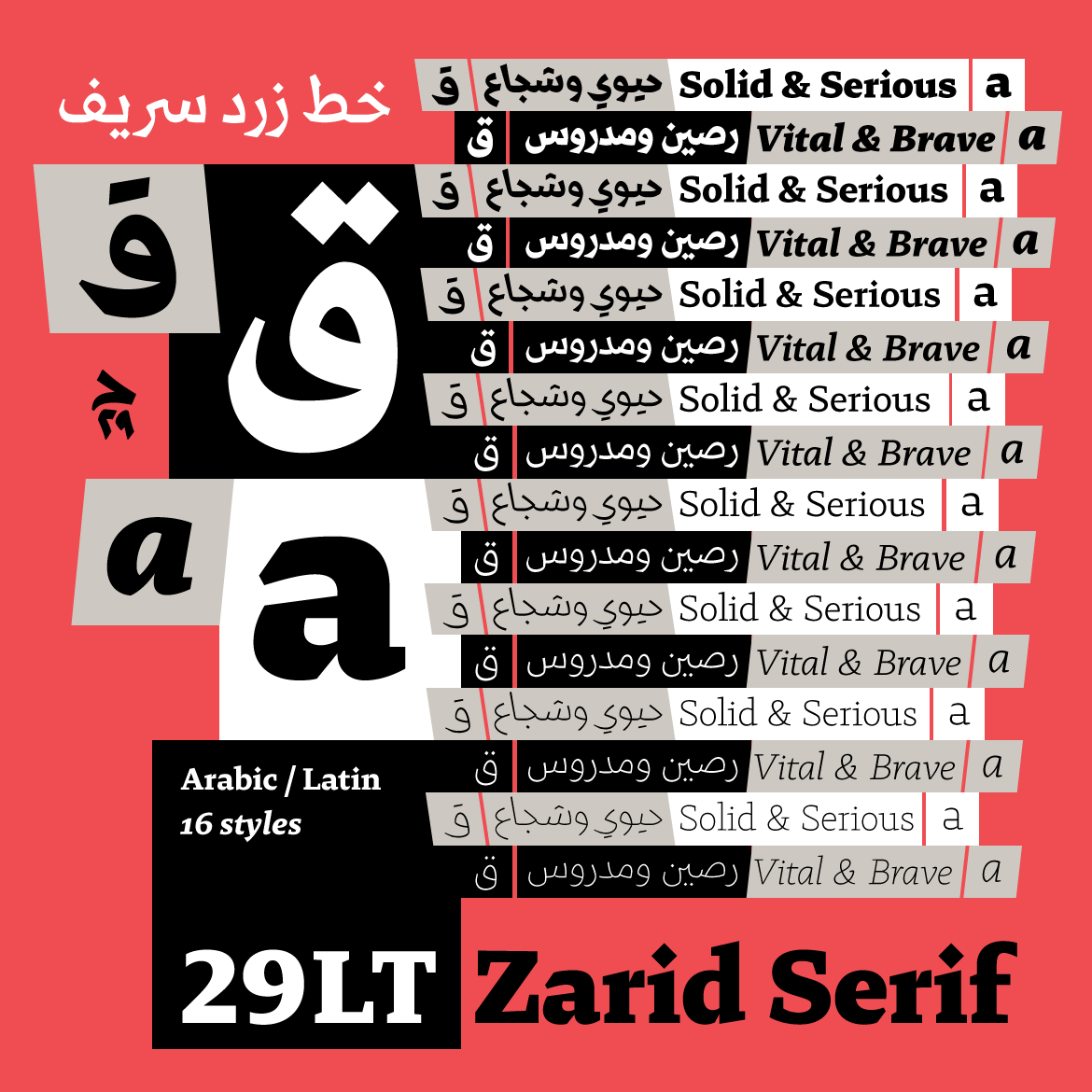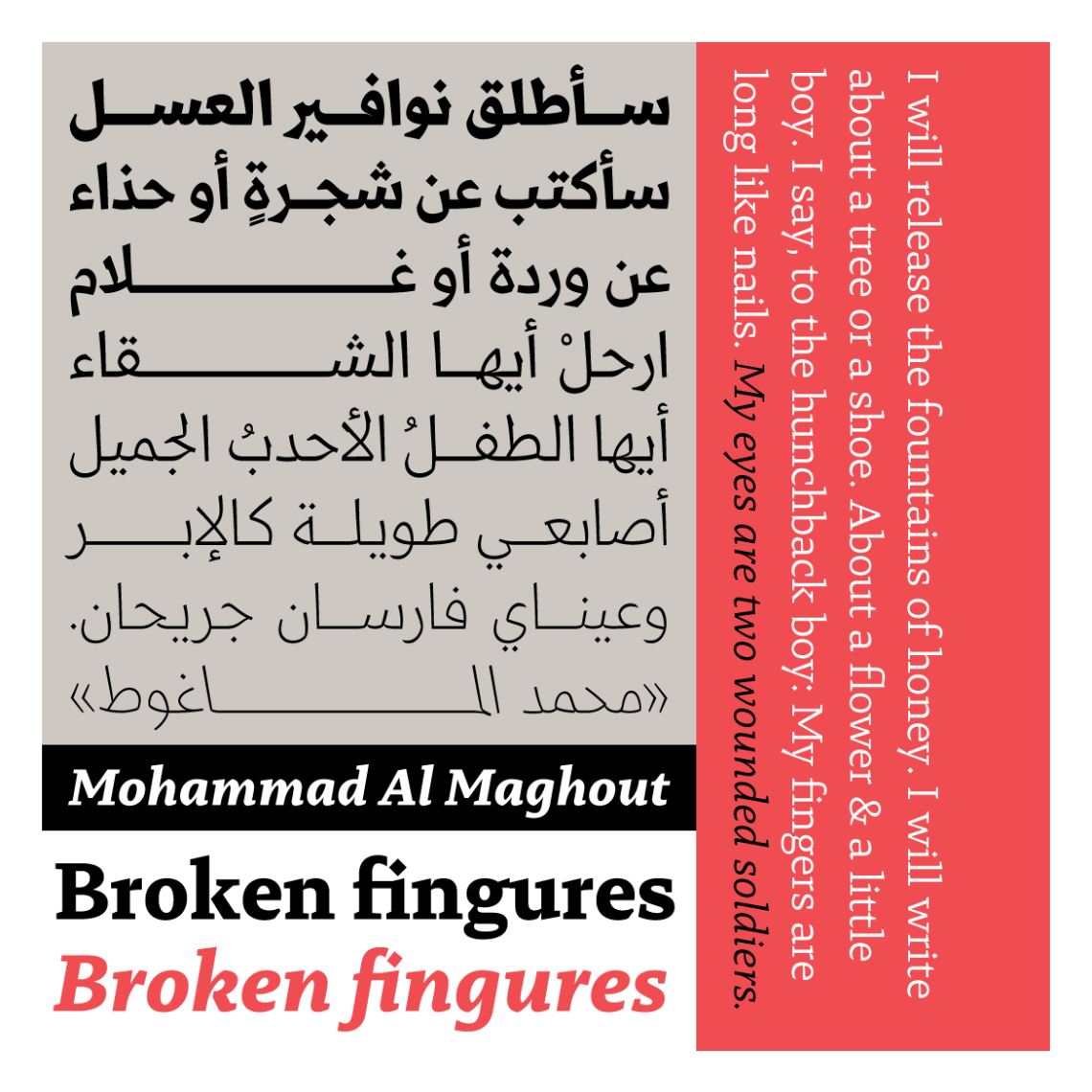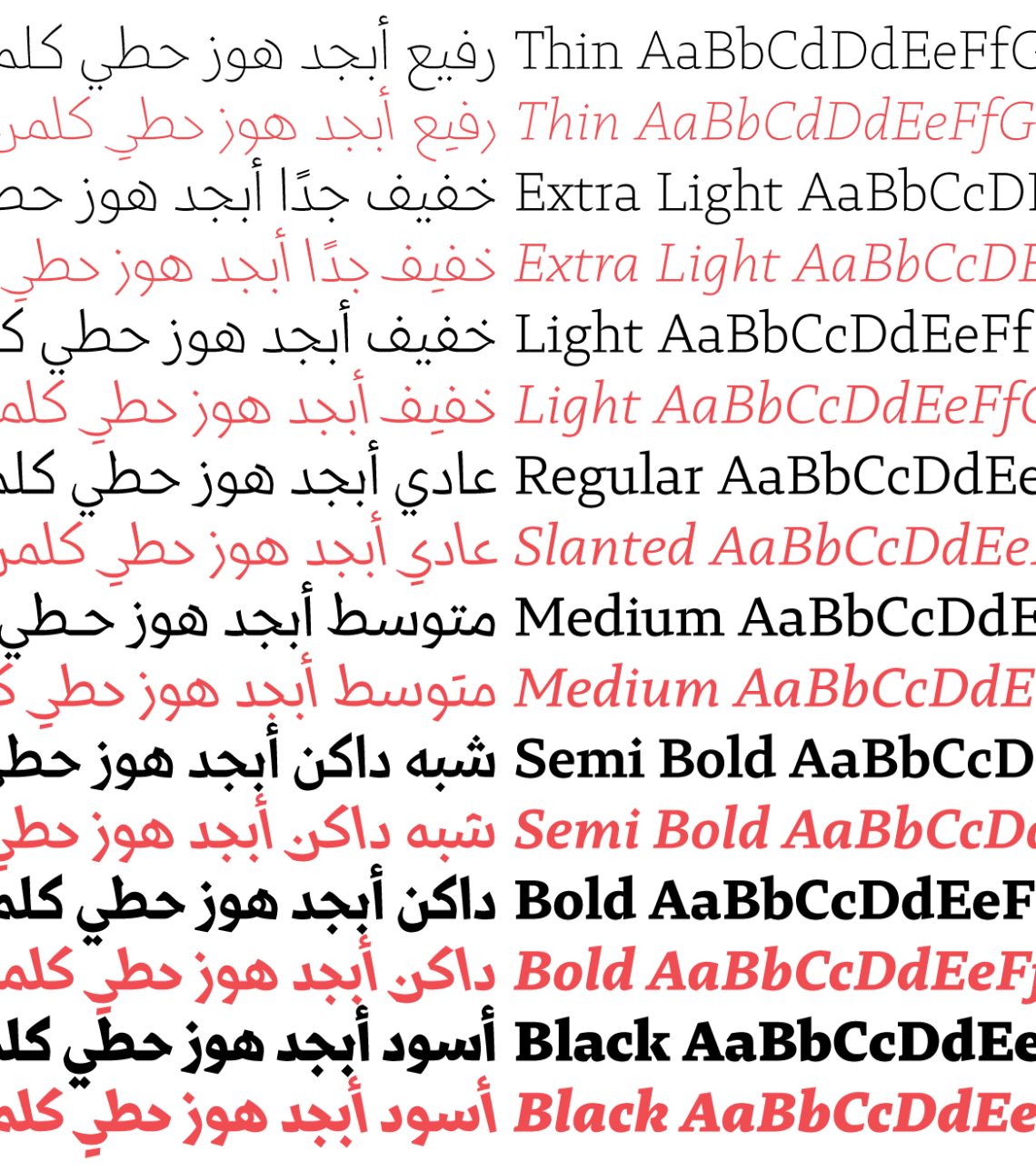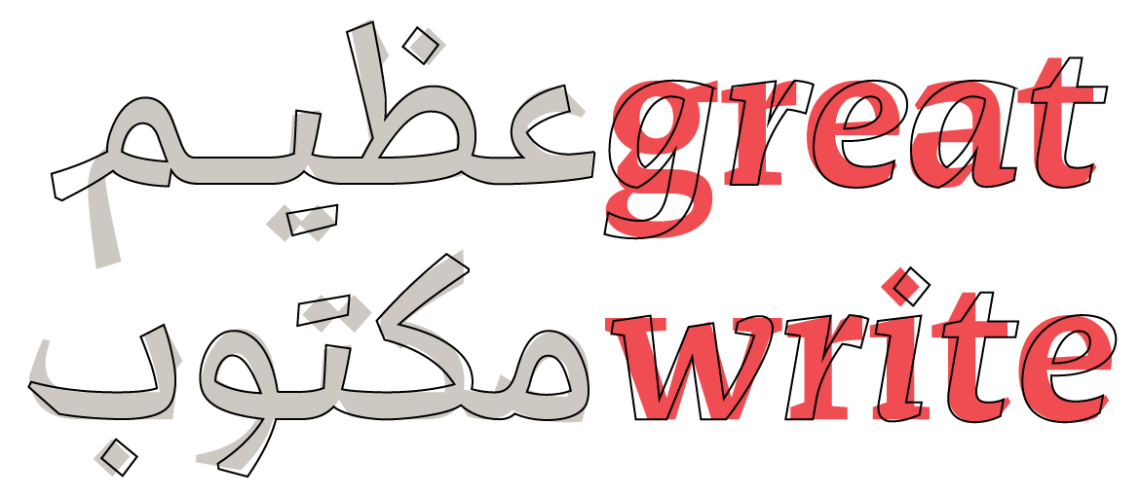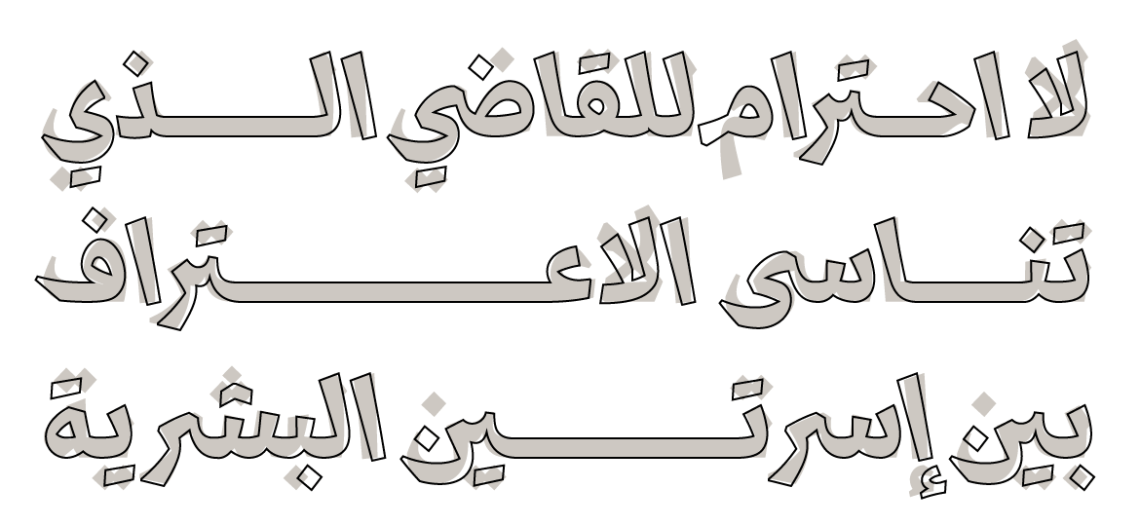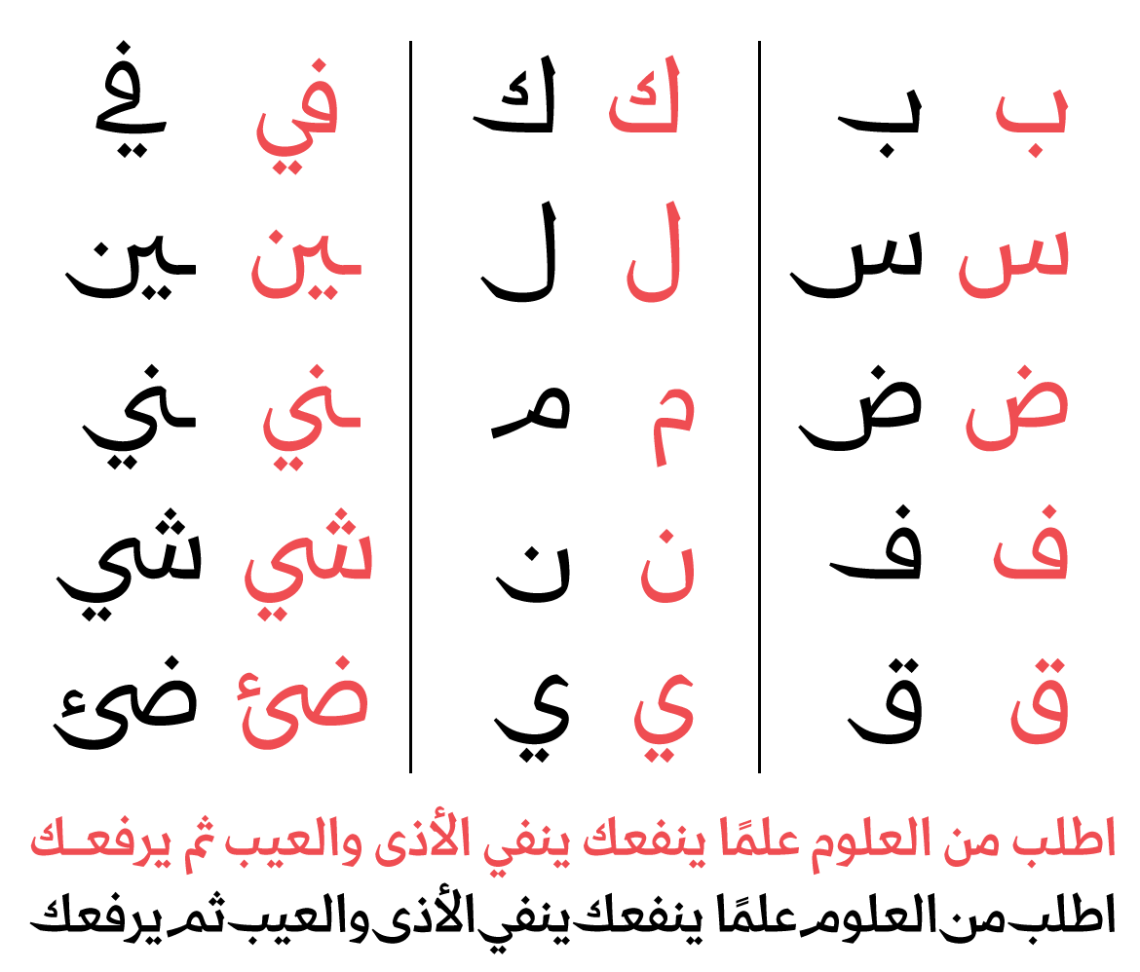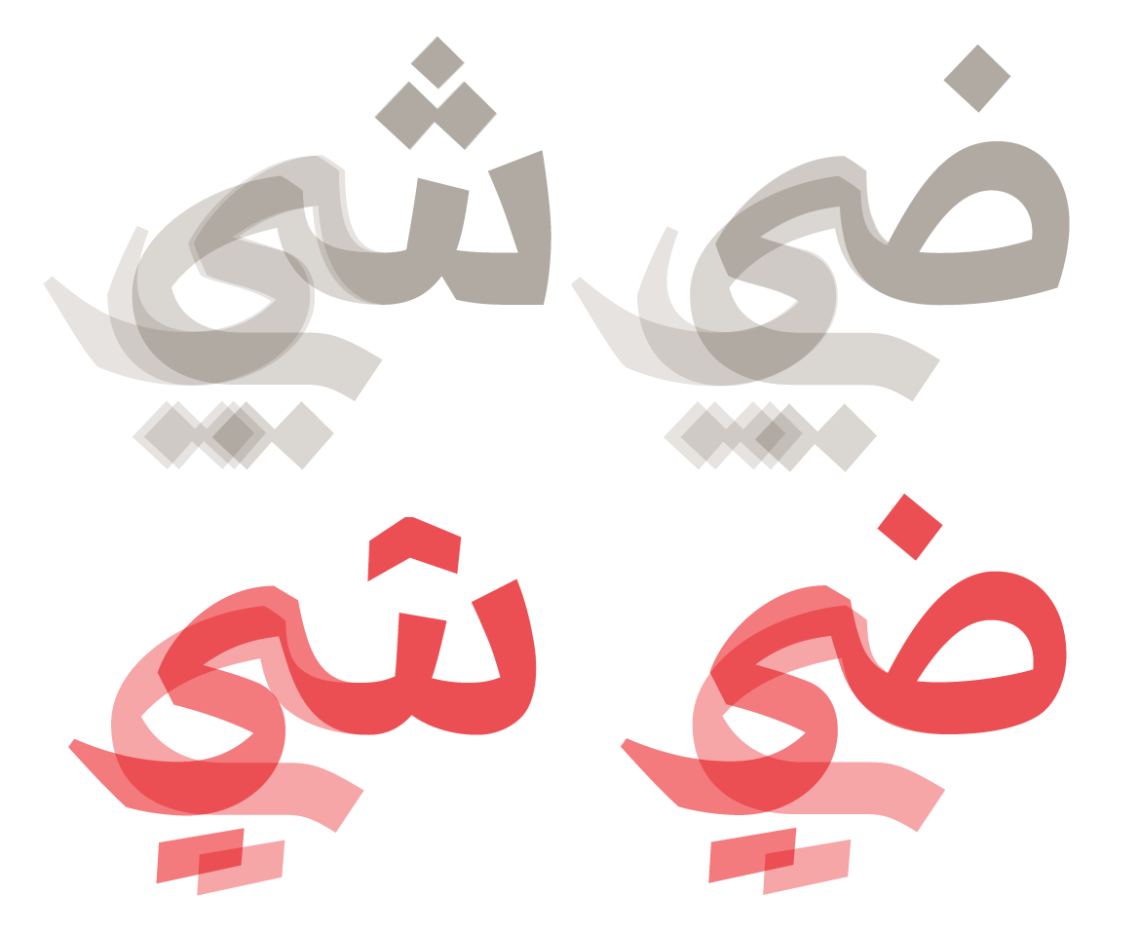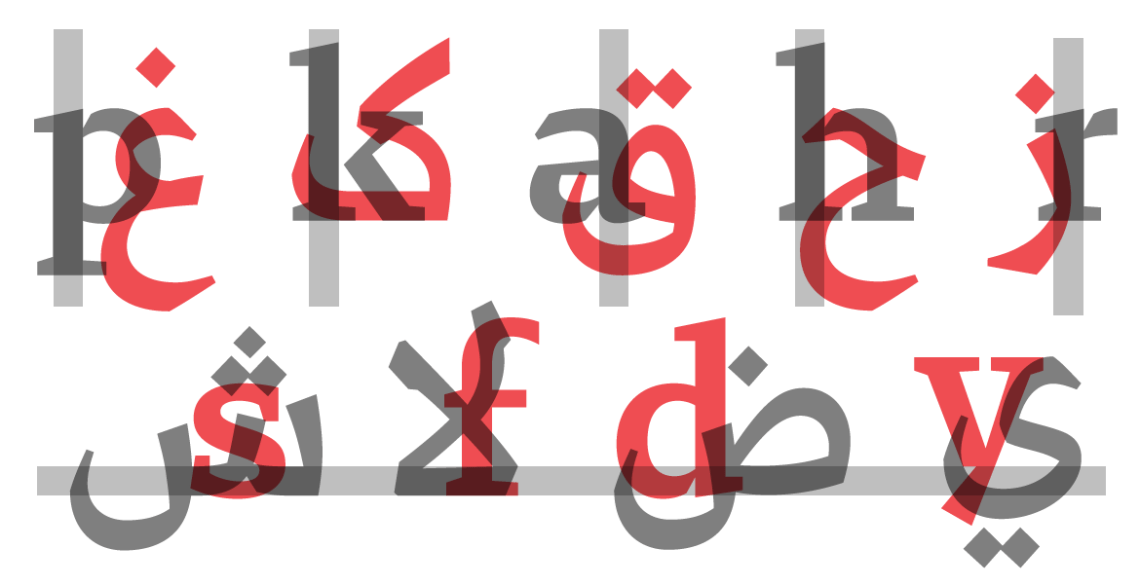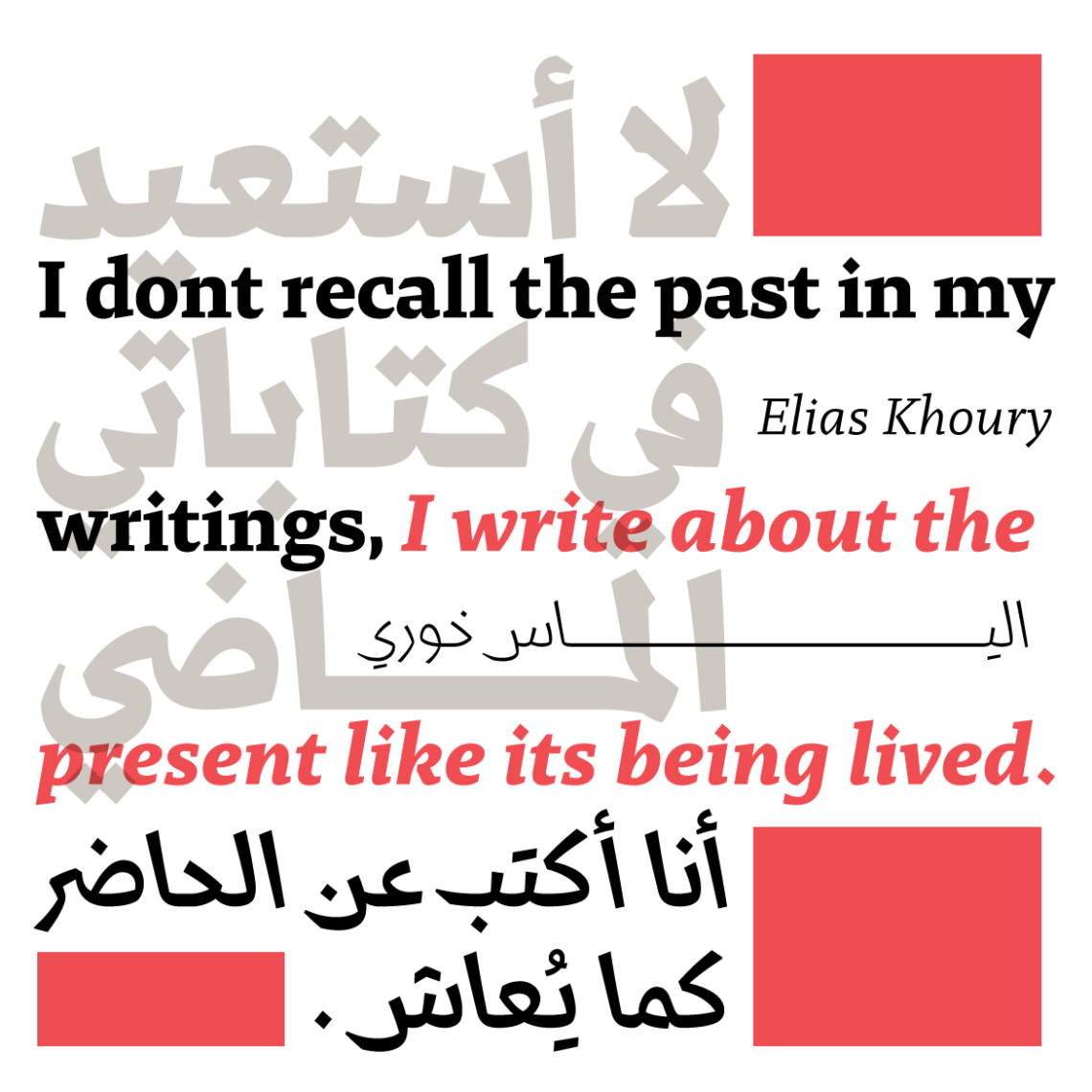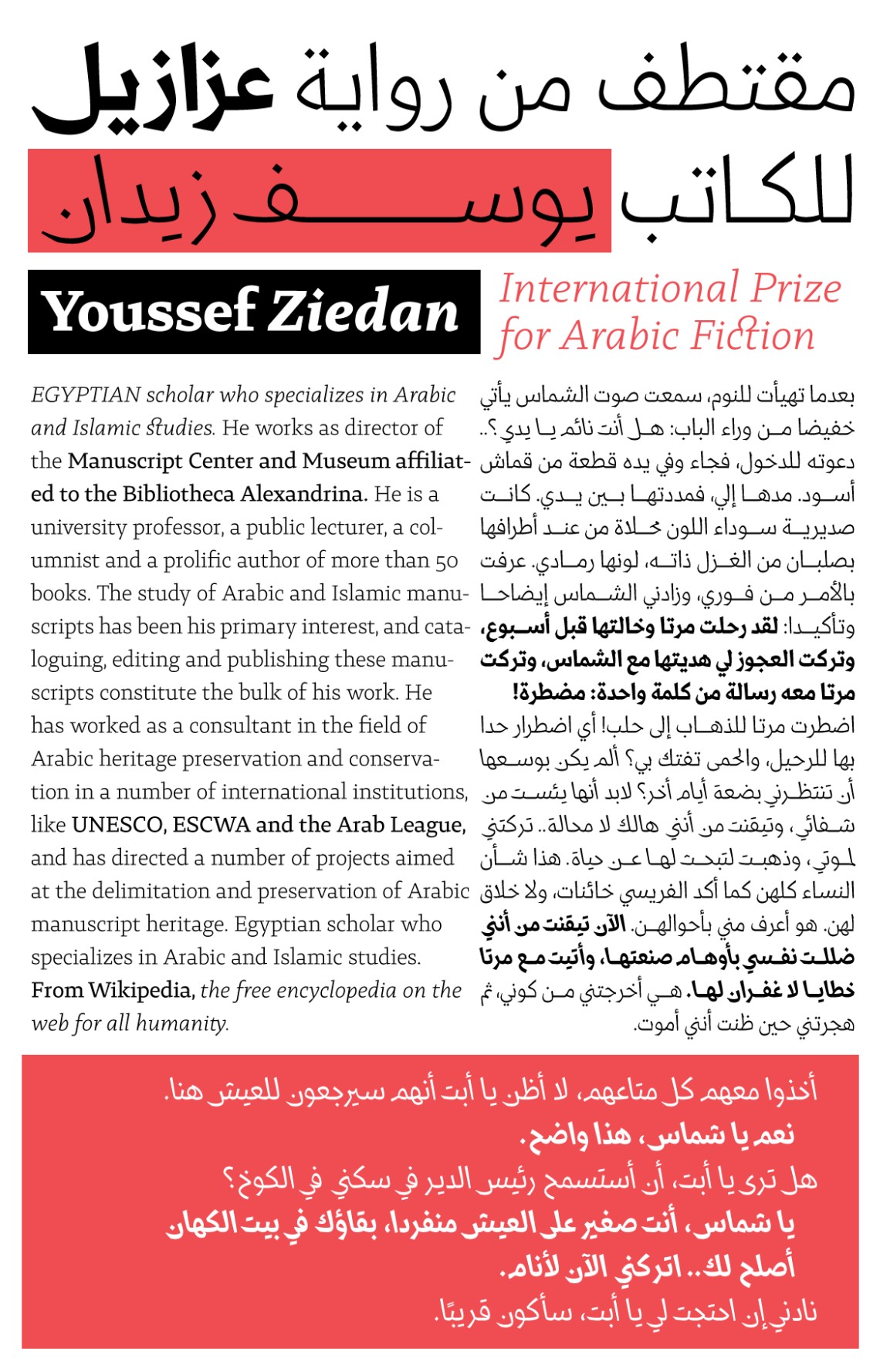
29LT ZARID Serif: A Bold and Vital Typeface
29LT Zarid Serif type family consists of 16 styles, 8 Standard styles, and 8 Slanted styles, covering the following weights: Thin, Extra Light, Light, Regular, Medium, Semi Bold, Bold, and Black. The Arabic and the Latin mirror each other’s appearances much like fraternal twins with compatible attitudes.
16 Styles: [1] Thin, [2] Thin Slanted, [3] Extra Light, [4] Extra Light Slanted, [5] Light, [6] Light Slanted, [7] Regular, [8] Slanted, [9] Medium, [10] Medium Slanted, [11] Semi Bold, [12] Semi Bold Slanted, [13] Bold, [14] Bols Slanted, [15] Black, and [16] Black Slanted
The typeface includes advanced typographic features (ligatures, alternates and stylistic sets) that improve legibility and give diverse typesetting options. The fonts cover all Middle Eastern, North African, Eastern European, Central European, Western European, and North and South American Languages. The number of glyphs per font is 1550+.
29LT Zarid Serif Standard and Slanted typeset together. English and Arabic text. Quote by Mohammad Al Maghout
“The word Zarid means strong, robust. And indeed, 29LT Zarid Arabic’s persona contains a robust arsenal of qualities and attitudes appropriate for countless monolingual or bilingual typographic concepts and visual explorations.” Extract from 29LT Zarid typeface review, written by Diane Mikhae, for “Typographica 2016 Favorite Fonts”.
29LT Zarid Serif Description
29LT Zarid Serif letterforms are drawn with extreme refinement and varying contrast between the light and heavy weights of the type-family. The letters in the light weights (Thin, Extra Light, Light, and Regular) are drawn in low contrast and smooth curves, while the letters in the heavy weights (Medium, Semi Bold, Bold and Black) are drawn in high contrast with crisp cuts and sharp pen strokes. The typeface is suitable for a vast array of literature and educational publications besides branding and design projects. Zarid Serif is a combination of an Arabic Naskh Mastari accompanied with a wedged serif Latin counterpart that makes it reliable for both content and display text. The slanted styles give the type family an added typographic voice for highlight or emphasis.
Outline design change between the light and heavy weights in the type family
“As I peered at the details in the Thin, Extra Light, Light, and Regular weights, I noticed that the nib wedges found in the Bold weight were omitted, which makes the flow of the letters agiler. The low contrast of the letters’ components offers consistency and smooth connections. The formal qualities found in the Light weight greatly contribute to its legibility, which makes it suitable for publications and running text at small sizes.” Extract from 29LT Zarid typeface review, written by Diane Mikhael, for “Typographica 2016 Favorite Fonts”.
29LT Zarid Serif Standard versus Slanted
The standard styles retain a balance between calligraphic angular cuts and unadorned construction. The contrast in the letters was coupled with strong cuts and edges to give the font it vigorous attitude. The letterforms are inspired by calligraphic makeup but drawn with a modern-day feel. The Arabic ligatures and elongated stylistic sets give the typeface an added calligraphic characteristic. These were meant to provide the script’s robustness and activate its’ strong characteristic and serious attitude.
29LT Zarid Serif Standard (in Color) versus Slanted (in outline). The outline change between the two styles is clearly noticeable since the Slanted styles are redrawn and not merely inclined versions of the standard styles
The slanted styles are redrawn based on fast hand-gestures and not merely slanted from the standard fonts. The stems are slanted while the counters are round and smooth. In the Arabic character set, the terminals are curvy with open-ended bowls and smooth baseline links. They are a set of free-spirited styles that can accompany the standard set for a change of text tone, or may stand alone as a casual copy text or delightful display text. The slanted styles in the Latin script are the cursive set of fonts that is known as “true-italics” which are based on a stylized form of quick calligraphic handwriting. The name “slanted” was adopted instead of “italic” for the inclined styles because in Arabic typography and calligraphy the term, italic, does not exist.
29LT Zarid Serif stylists sets of elongated bowls and terminals
The design approach, with open counters, clean terminals/finials, balanced weight and high contrast, are all elements that bring the Arabic and Latin scripts together: No surprise, both scripts were created in synergy and were inspired from each other simultaneously. The Naskh Mastari calligraphic style of the Arabic is complemented by a calligraphic broad nip pen technique in the Latin, creating strong wedged serif Latin.
“29LT Zarid’s letterforms incorporate binary opposites. The family contains eight weights: letters with low contrast were drawn for the thin weights; those with high contrast, for the heavy weights. This cool dichotomy also appears in the quality of each letter’s strokes and angles, which gently merge the organic and fluid with the sharp and brusque. 29LT Zarid successfully intersects these elements with delicacy and courage. That’s what makes this typeface so unique and powerful, and what has earned 29LT Zarid a place in the library of truly contemporary Arabic typefaces for both display and text.” Extract from 29LT Zarid typeface review, written by Diane Mikhael, for “Typographica 2016 Favorite Fonts”.
29LT Zarid Serif Type Specimen